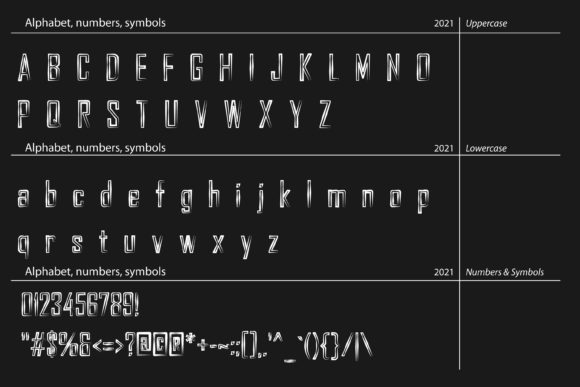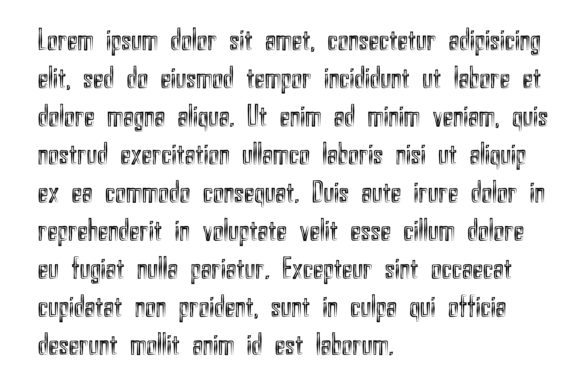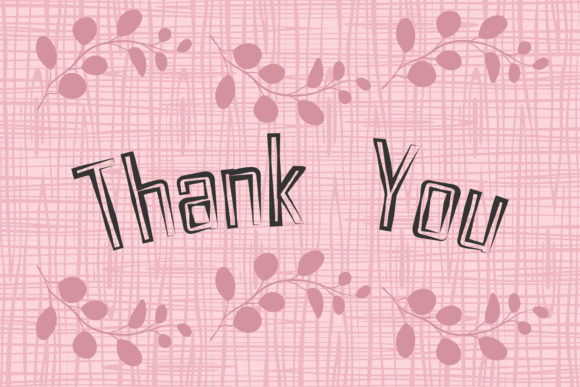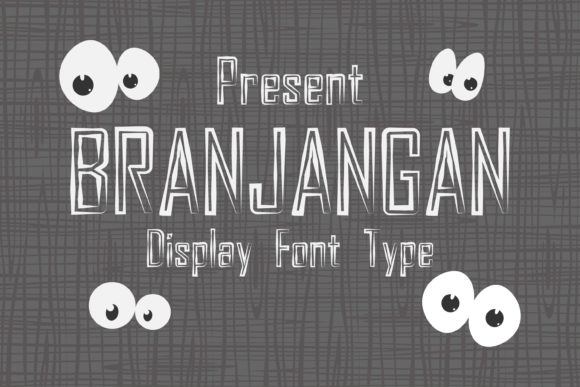
The Joy of Branjangan Font: Elevating Your Designs with a Fun and Playful Twist
I’ll never forget the time I was working on a project for a craft fair, and I just couldn’t seem to find the right font to match my design. The client wanted something fun and playful, but everything I tried looked either too serious or too childish. That’s when I stumbled upon Branjangan Font, and it was love at first sight! ✨ This fun and joyful display font has been a game-changer for my designs, and I’m excited to share its awesomeness with you.
An Honest Review of Branjangan Font
- ✨ Simple and easy to use: Branjangan Font is a breeze to work with, even for those who are new to design.
- ✅ Beautiful and playful: This font adds a touch of whimsy to any design, making it perfect for crafty projects.
- 🌈 Highly versatile: Branjangan Font works well with a variety of design styles and themes.
While Branjangan Font is an amazing addition to any design, there are a few things to keep in mind:
- ⚠️ Limited use for body text: Due to its playful nature, Branjangan Font is best suited for headlines and titles rather than large blocks of text.
- 🤔 May not work well with very dark or bold backgrounds: The font’s playful lines and curves can get lost with very dark or bold backgrounds.
- Explore the font’s stylistic alternates and OpenType features to add more flair to your design.
The Story Behind Branjangan Font
Branjangan Font was designed with the intention of bringing a bit of joy and playfulness to the world of typography. The designer, inspired by the beauty of nature and the world around us, created a font that would be both fun and elegant. The result is a font that’s perfect for crafty designs, DIY projects, and any creative endeavor that needs a touch of whimsy.
Q: What is Branjangan Font best used for?
A: Branjangan Font is best used for headlines, titles, and short blocks of text where a playful touch is desired.
Q: Is Branjangan Font suitable for body text?
A: While Branjangan Font is a beautiful font, it’s not ideal for large blocks of body text. It’s best used for headlines and titles.